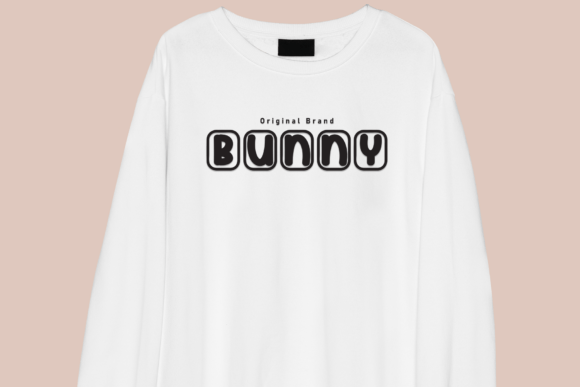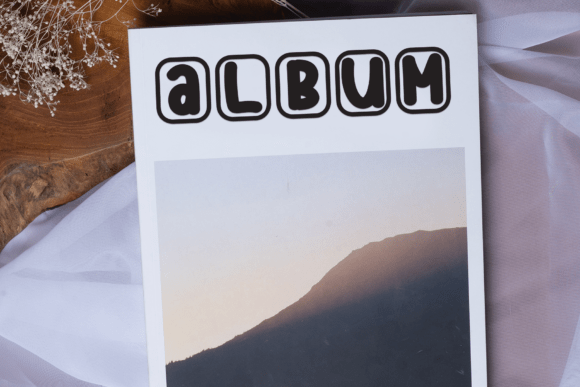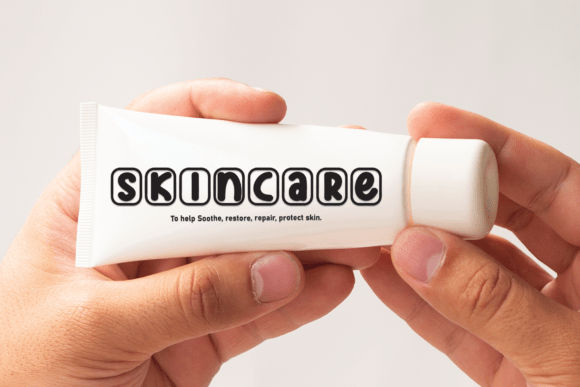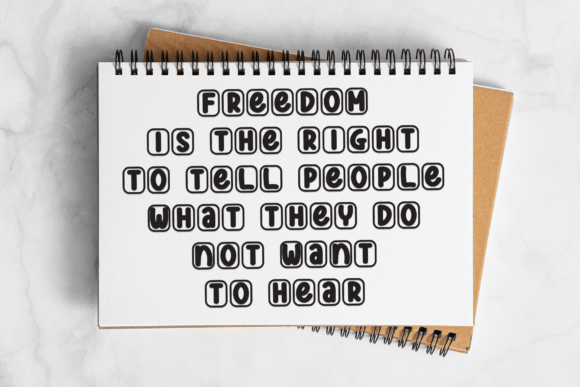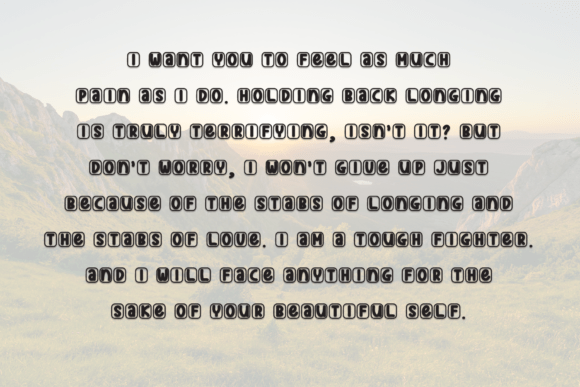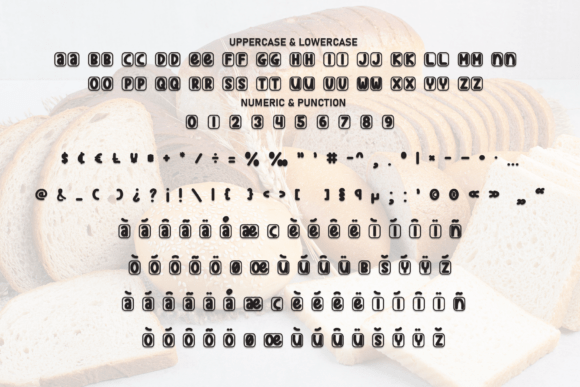
Meet the Font that Brings Warmth to Your Creations
Have you ever found yourself stuck in a design rut, searching for the perfect font to convey the emotions behind your work? For designers, this is a common struggle, especially when it comes to creating unique and memorable pieces that leave a lasting impression. One moment of inspiration changed everything for me – I was browsing through a collection of handwritten fonts and stumbled upon a font that seemed to radiate warmth and comfort, instantly sparking a sense of creativity.
Enter Bread Font, a captivating and congenial handwritten display that embodies the essence of genuine comfort and joy. This delightful font is perfect for creating enchanting wedding invitations, innovative cards, or distinctive designs with a lighthearted twist. Its charm and amiability infuse vitality into each word, transforming a simple string of text into a memorable masterpiece.
Bread Font Key Features
- Font Family: Bread Font is a sans-serif font family designed for modern and minimalist designs.
- Character Set: Includes a wide range of characters, including Latin, Greek, and Cyrillic alphabets, as well as punctuation marks and symbols.
- Unique Characteristics: Features a clean and geometric design, with a focus on legibility and readability in both on-screen and print contexts.
Bread Font Review
I recently had the chance to work with the Bread Font, and I must say it’s a unique and interesting typeface. ✨ The first thing that stands out is its distinctive appearance, which is reminiscent of hand-painted bread loaves. This gives the font a warm and inviting feel that’s perfect for food-related projects or brand identities.
Some of the strengths of the Bread Font include:
- Its versatility: Bread Font can be used in a variety of contexts, from headings to body text.
- Its expressive nature: The font’s irregularities and imperfections make it feel more human and relatable.
- Its customizability: The font offers a range of weights and styles, allowing designers to tailor the look to their specific needs.
- Readability: In certain contexts, the Bread Font’s unique appearance can make it difficult to read, especially in small sizes or at a distance.
- Consistency: The font’s irregularities can also make it challenging to maintain consistency throughout a design.
Overall, the Bread Font is a creative and engaging typeface that can add a lot of personality to a design. While it may not be suitable for every project, it’s definitely worth considering for those looking for a unique and memorable visual identity.
Tips for Getting the Most Out of Bread Font
Here are a few tips to help you get the most out of Bread Font:
- Use Bread Font for titles, headings, and emphasis
- Pair Bread Font with a clean, sans-serif font for body text
- Experiment with different font sizes and colors to create visual interest
Bread Font is perfect for:
- Restaurant and cafe menus
- Food-related advertising and marketing materials
Alternatives to Bread Font for Designers
Great Vibes is a beautiful, handwritten font that works well for creative projects, headings, and titles. It’s ideal for use in advertising, fashion, and lifestyle design.
Compared to Bread Font, Great Vibes is more elegant and refined, making it suitable for high-end designs. While Bread Font has a more casual, rustic feel, Great Vibes is more polished and sophisticated.
Dancing Script is a lively, cursive font that’s perfect for adding a touch of whimsy to designs. It’s great for use in invitations, posters, and other creative projects.